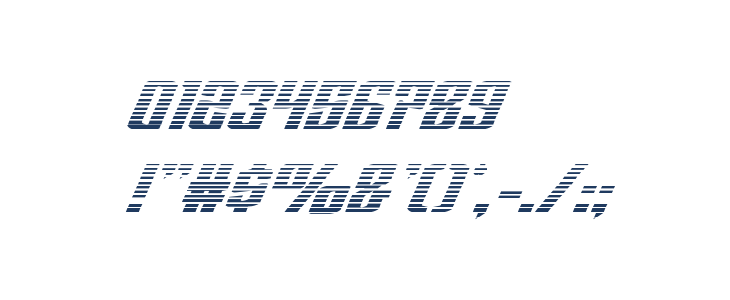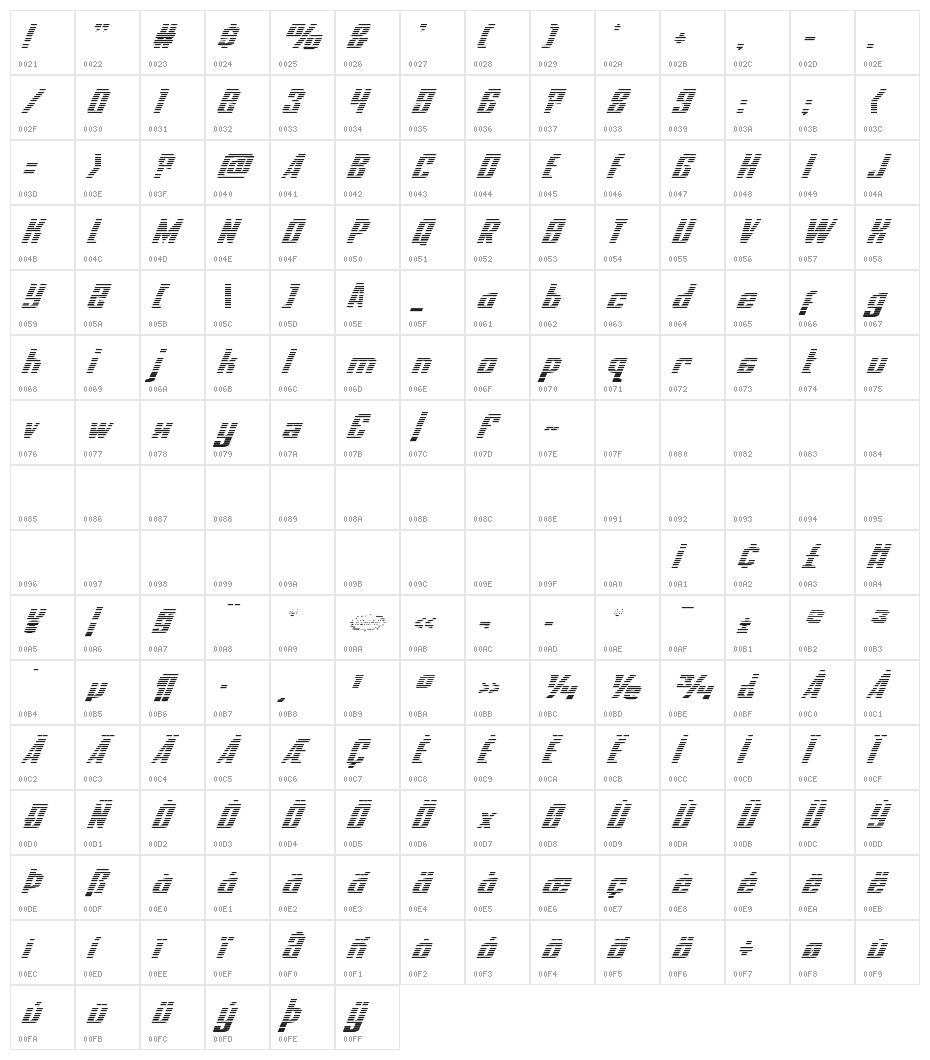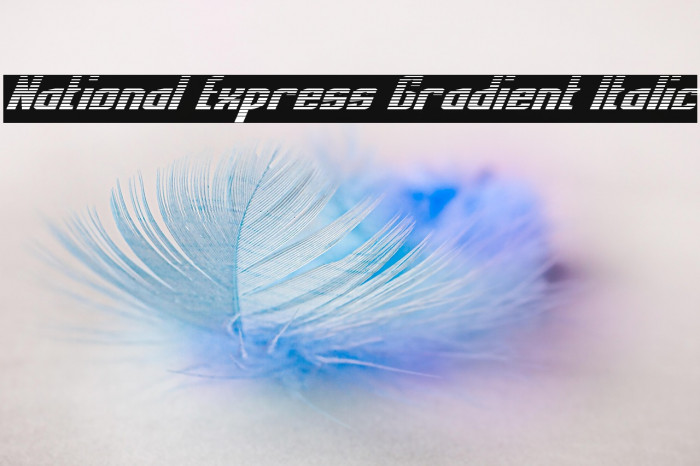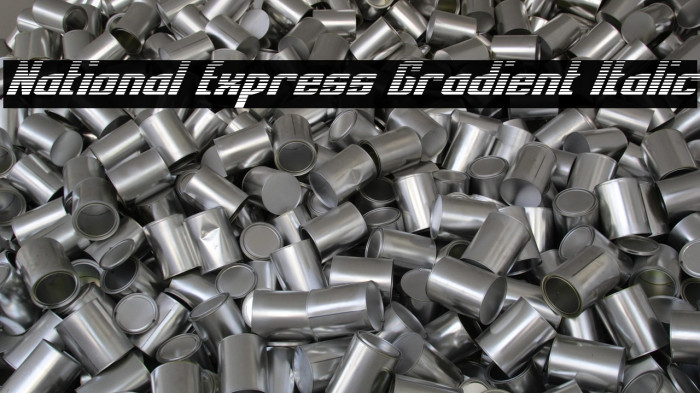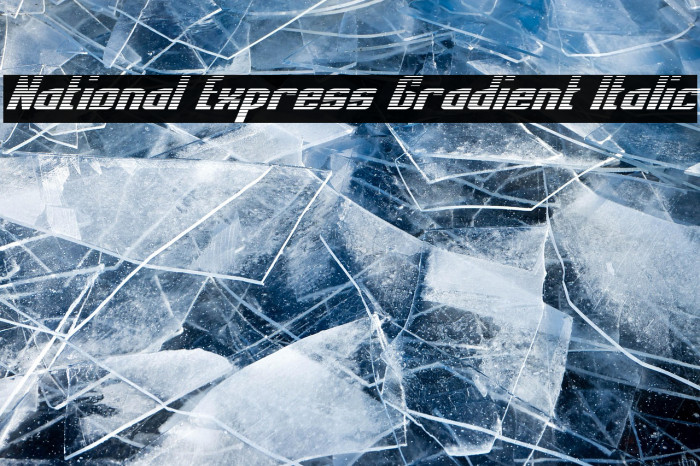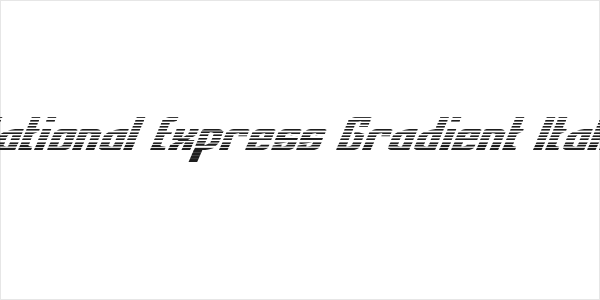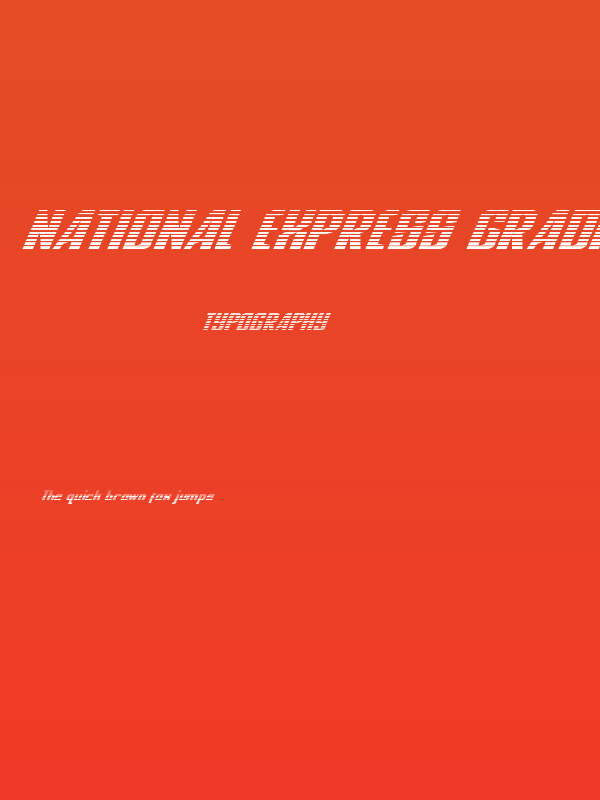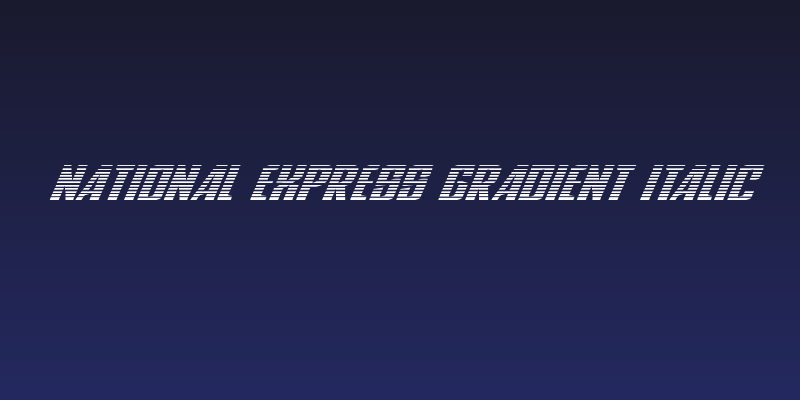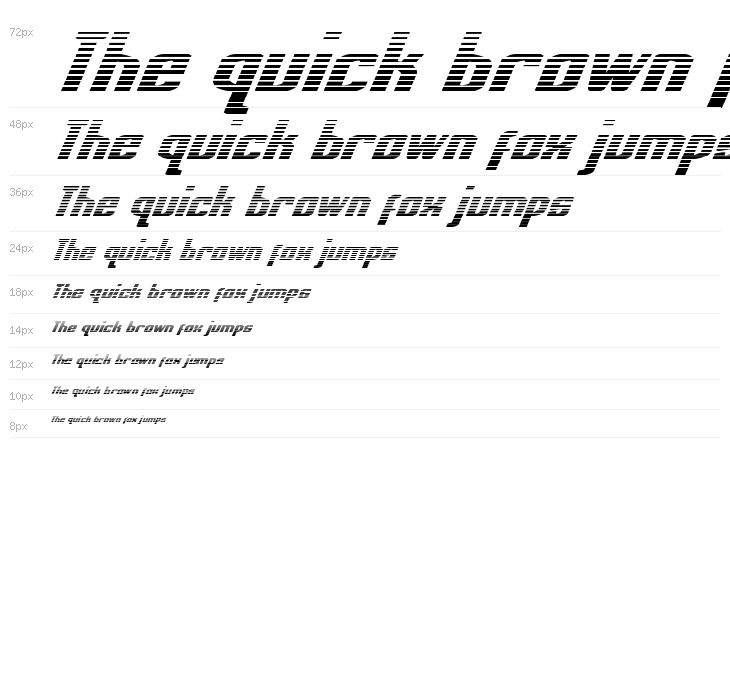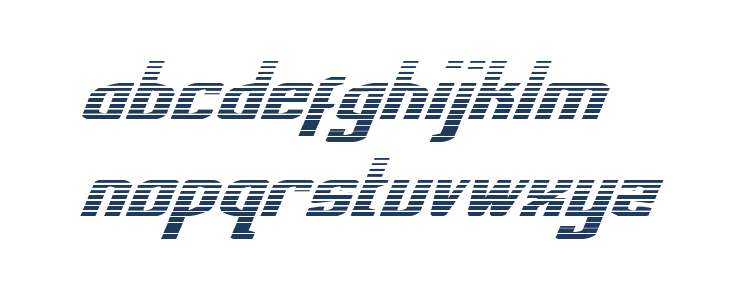
National Express Gradient Italic Font
National Express Gradient Italic Description
This font features a dynamic and modern design with a distinct italic slant, creating a sense of motion and speed. The characters are composed of horizontal lines that form a gradient effect, enhancing the visual impact and adding a futuristic touch. The uppercase and lowercase letters maintain a consistent style, with sharp angles and clean edges. Numbers and special characters are designed to match the overall aesthetic, ensuring uniformity across all elements. This font's unique style makes it stand out, perfect for projects that require a bold and contemporary look.